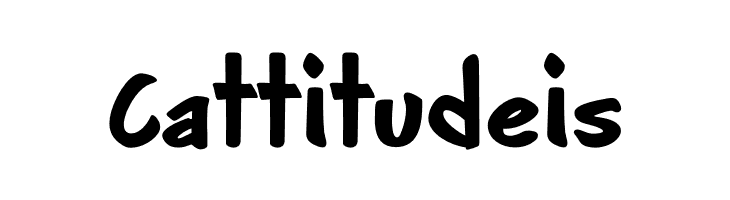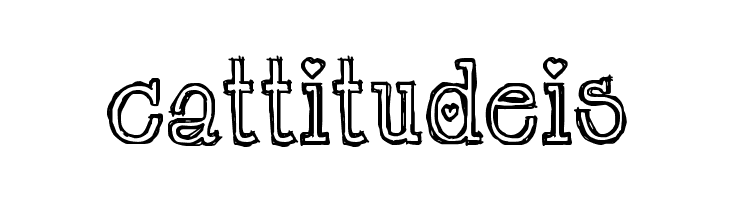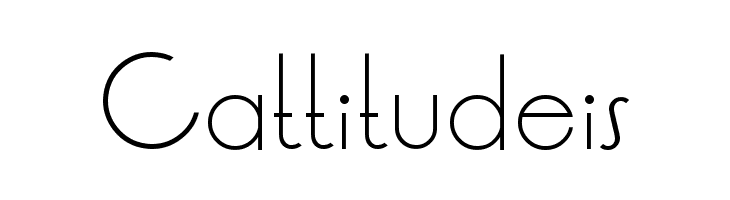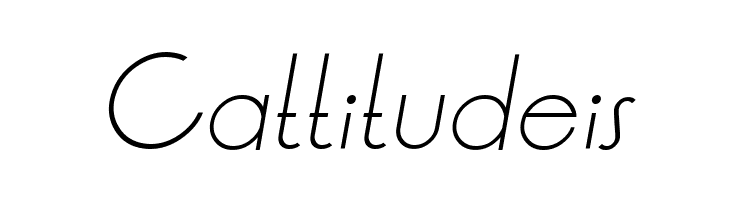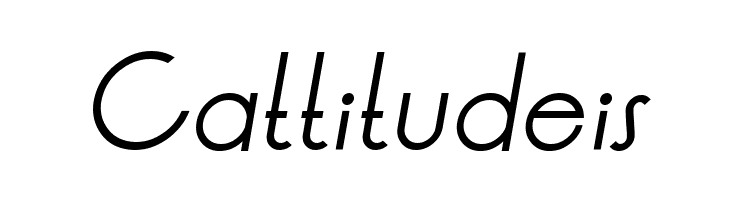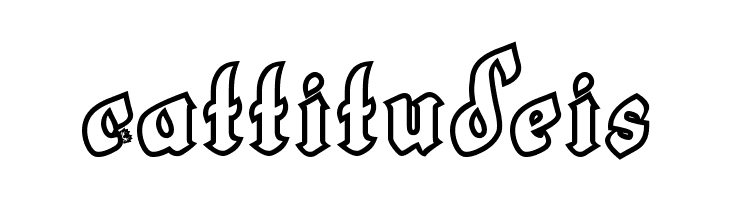
A bold, modern sans-serif font with strong, clean lines and uniform stroke width.
A modern, italic sans-serif font with clean lines and balanced spacing.
A modern, light sans-serif font with a clean and professional look.
A modern, light, and italic sans-serif font with medium contrast.
A modern sans-serif font with medium weight, offering clarity and versatility.
A modern, medium-weight, italic sans-serif font with a clean and elegant design.
A clean, modern sans-serif font with a geometric structure.
A modern, thin sans-serif font with clean lines and a minimalist style.
A sleek, thin, and italicized font with a modern and elegant style.
A sleek, modern sans-serif font with thin, elegant lines.
A sleek, modern, and thin italic font with elegant, fluid lines.
A classic serif font with elegant curves and modern versatility.
A bold, serif font with strong strokes and pronounced serifs, perfect for impactful headlines.
A bold, italicized font with strong strokes and a dynamic presence.
A bold serif typeface with strong serifs and a classic, elegant style.
A bold, italic serif font with a dynamic and sophisticated style.
A bold serif font with a classic yet modern style.
A bold, italic serif font with a dynamic and elegant style.
An elegant serif font with an italic style, offering a classic and sophisticated look.
A classic serif font with medium weight and elegant style.
Elegant serif font with a slight italic slant and medium weight.
A classic serif typeface with modern elegance and readability.
A modern, clean font with a playful touch and consistent stroke width.
A dynamic, handwritten-style font with expressive curves and varying stroke widths.
A playful and bold font with a hand-drawn, whimsical style.
A playful, handwritten-style font with a dynamic and quirky appearance.
A modern, geometric sans-serif font with clean lines and uniform stroke width.